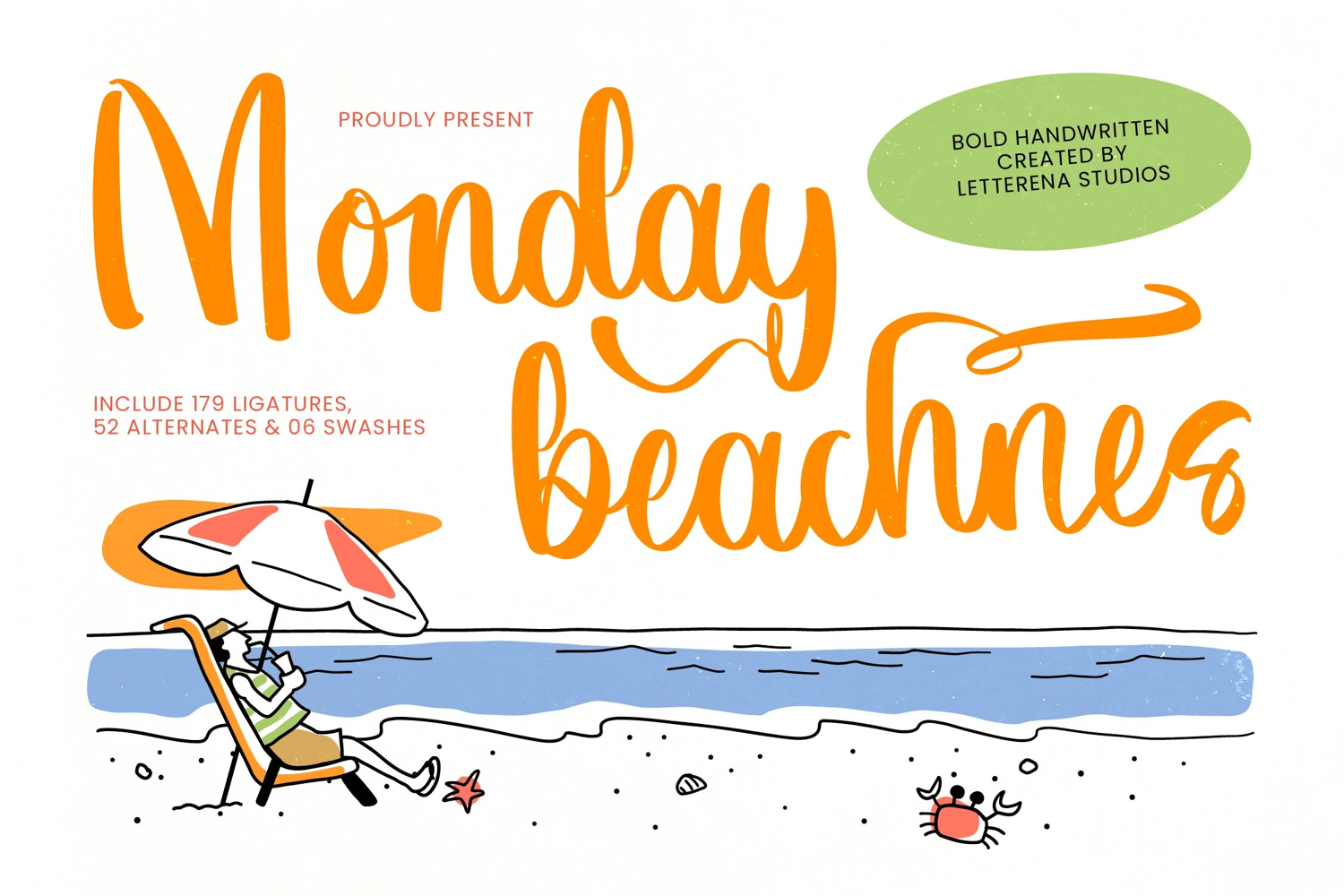
Monday Beachnes - Bold Handwritten
Monday Beachnes Italic
Monday Beachnes
Monday Beachnes - Bold Handwritten , from Letterena, is a Luxury Script font, suitable for any projects such as: logos, branding projects, homeware designs, product packaging, mugs, quotes, posters, shopping bags, t-shirts, book covers, name card, invitation cards, greeting cards, label, photography, watermark, special events, and all your other luxury and beautiful projects that need a Luxury Script taste.
179 Ligature 52 Alternate & 06 Swashes